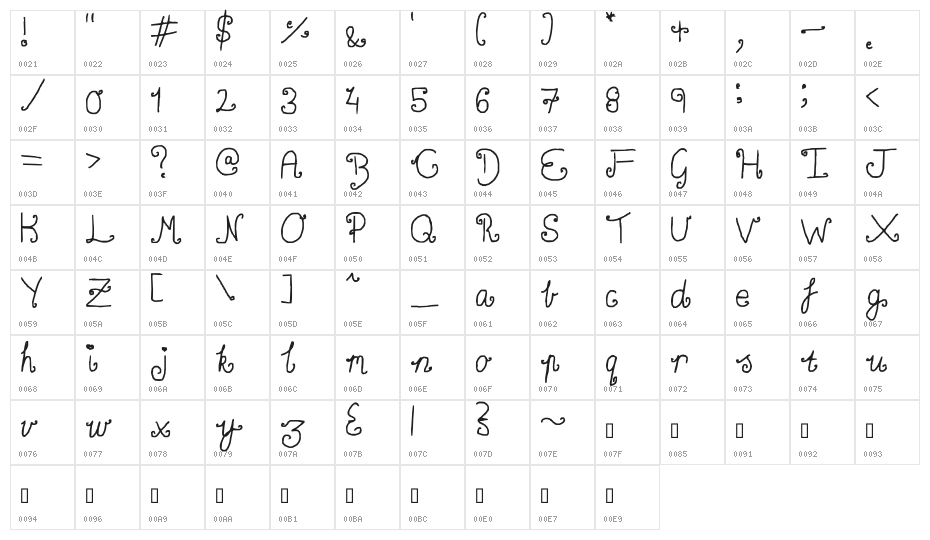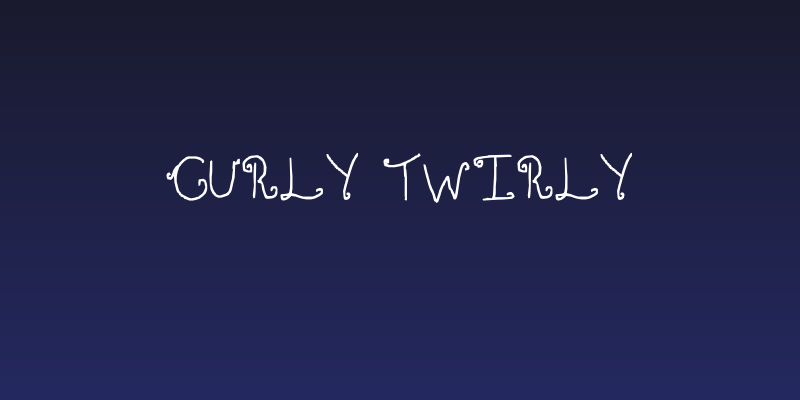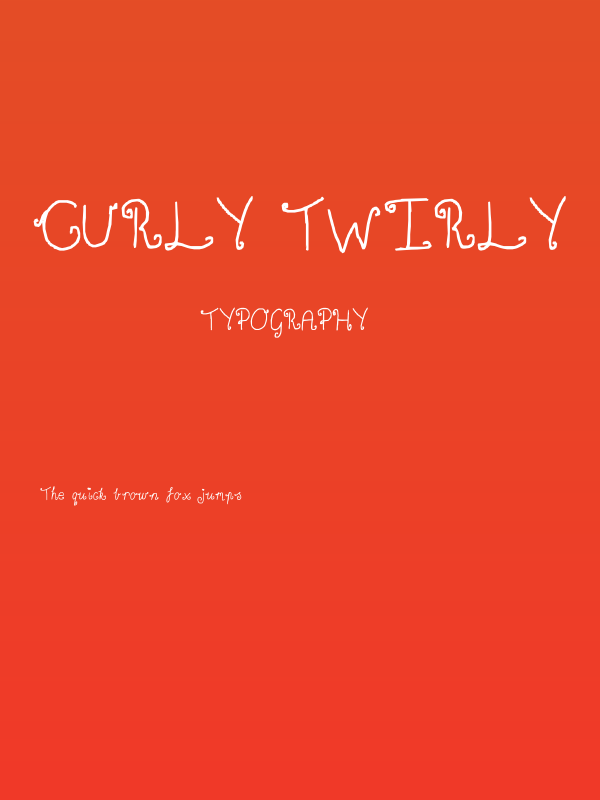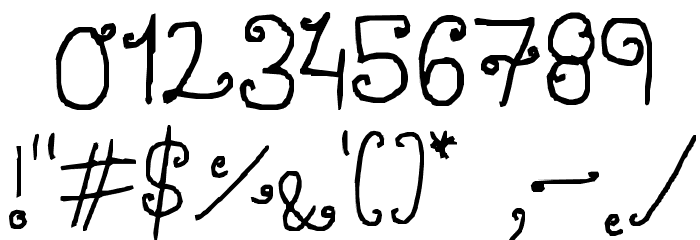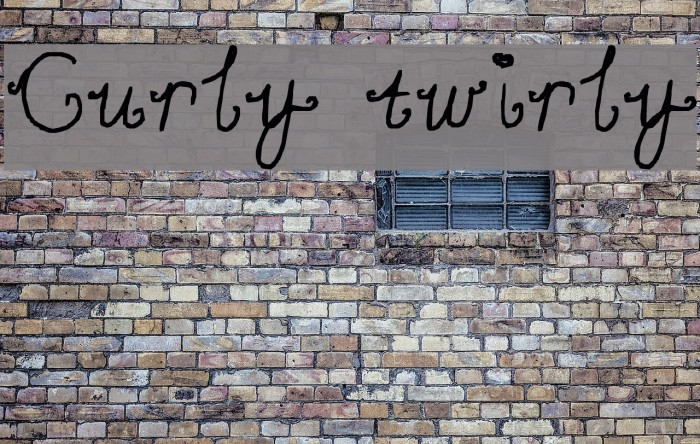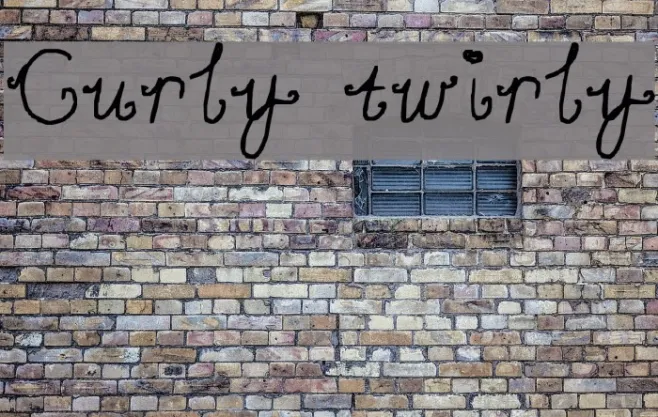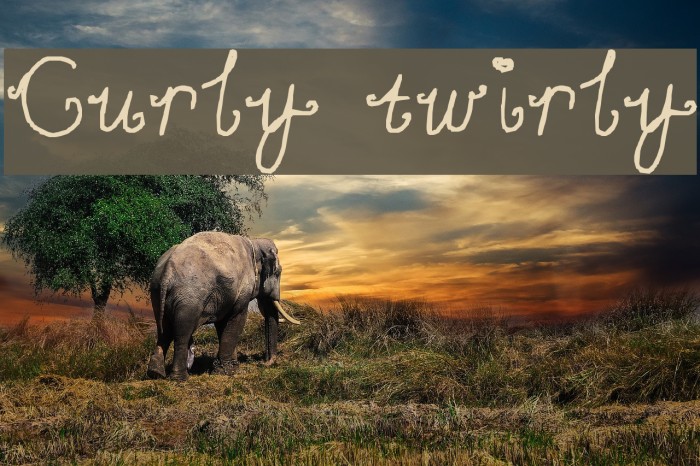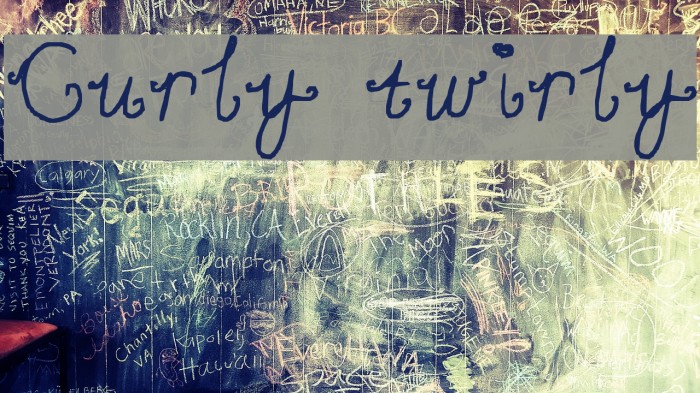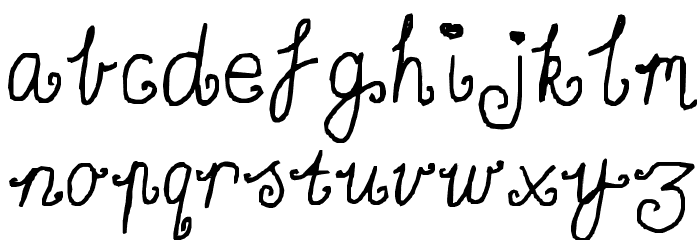
Curly twirly Font
Curly twirly Description
This whimsical font features playful, curly strokes that give each character a lively and animated appearance. The uppercase letters are characterized by their unique twirls and loops, adding a sense of movement and fun. The lowercase letters continue this theme with a slightly more relaxed style, maintaining the overall whimsical feel. Numbers and special characters are crafted with the same playful curves, ensuring consistency throughout the typeface. This font is perfect for projects that require a touch of creativity and joy, such as children's books, playful branding, or festive invitations.
| Overall Style | Whimsical, Playful |
| Proposed Projects | Ideal for children's books, playful branding, festive invitations, and creative projects. |